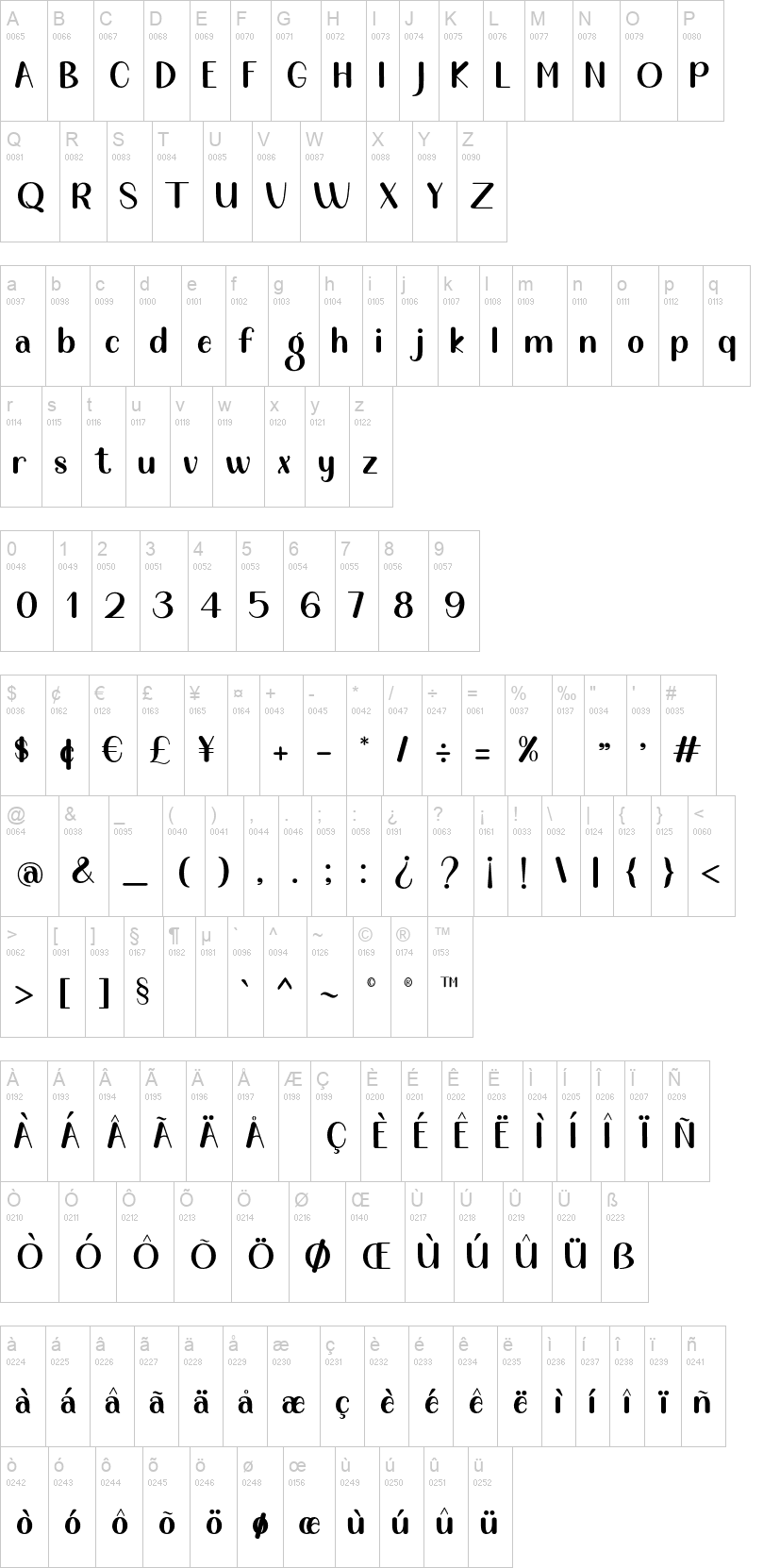
Note of the authorEpiphany is a modern sans serif font, carefully handcrafted to become a true favorite. Its casual charm makes it appear wonderfully down-to-earth, readable and, ultimately, incredibly versatile. This font will look outstanding in any context, whether its being used on busy backgrounds or as a standalone headline!